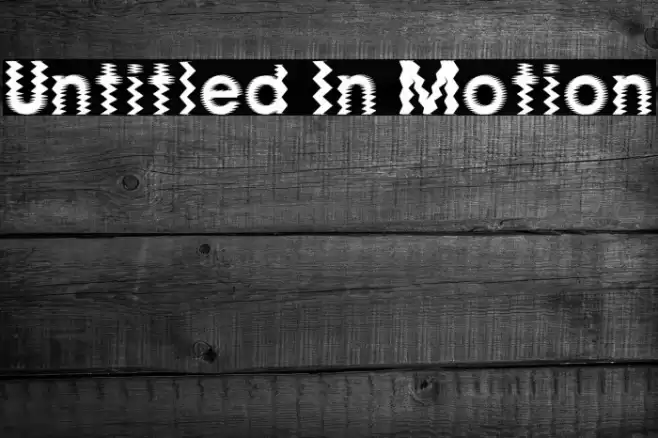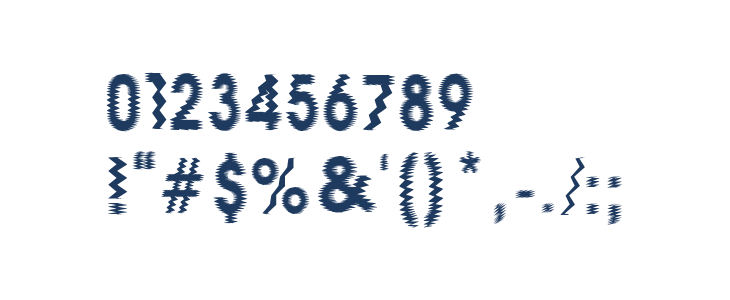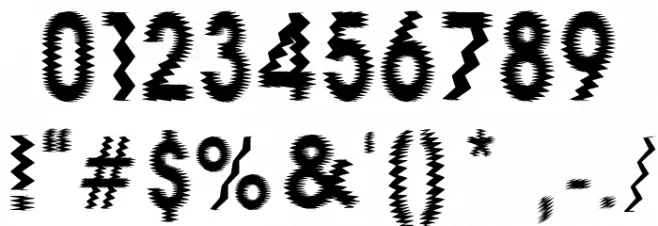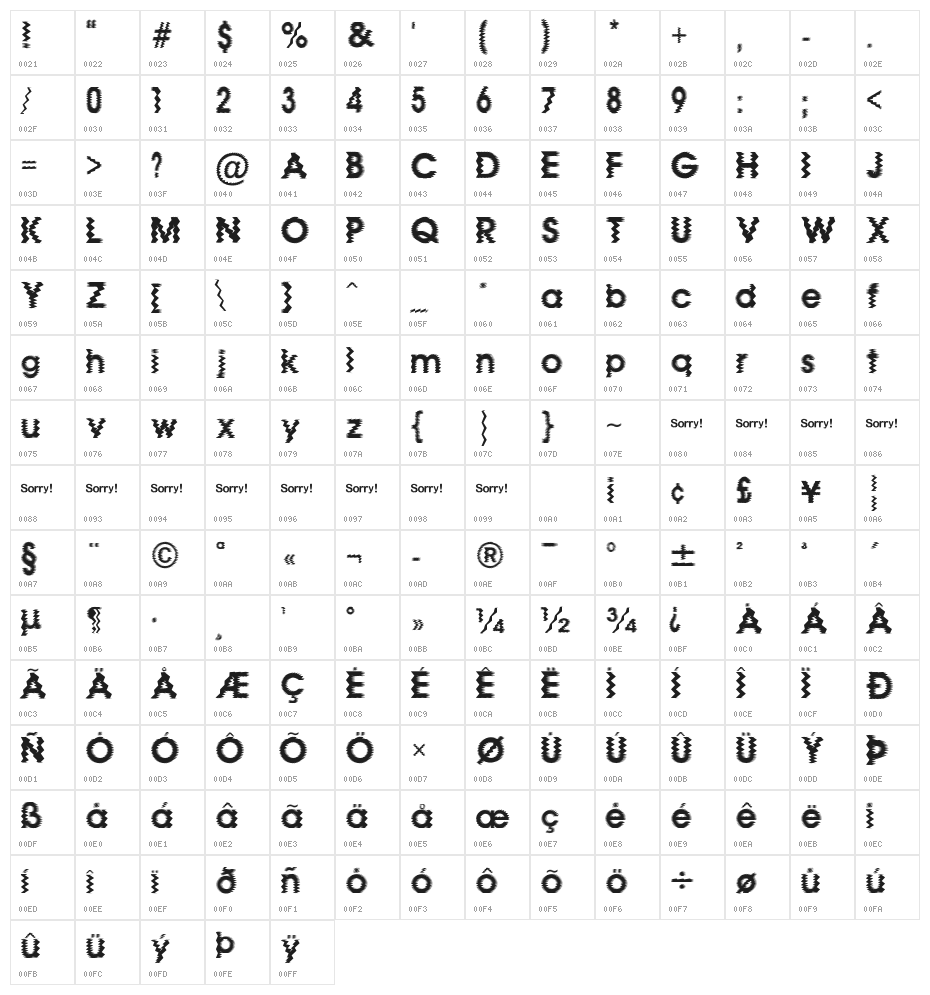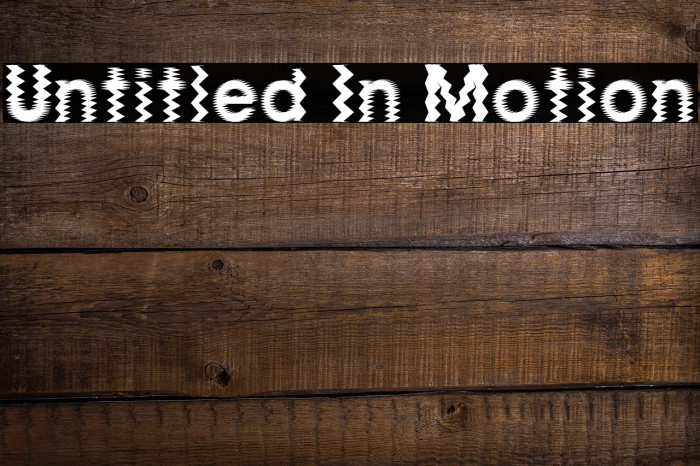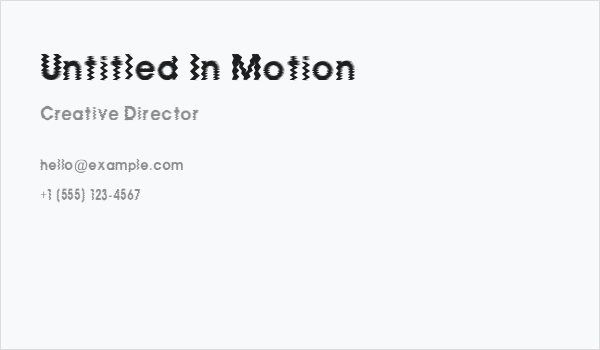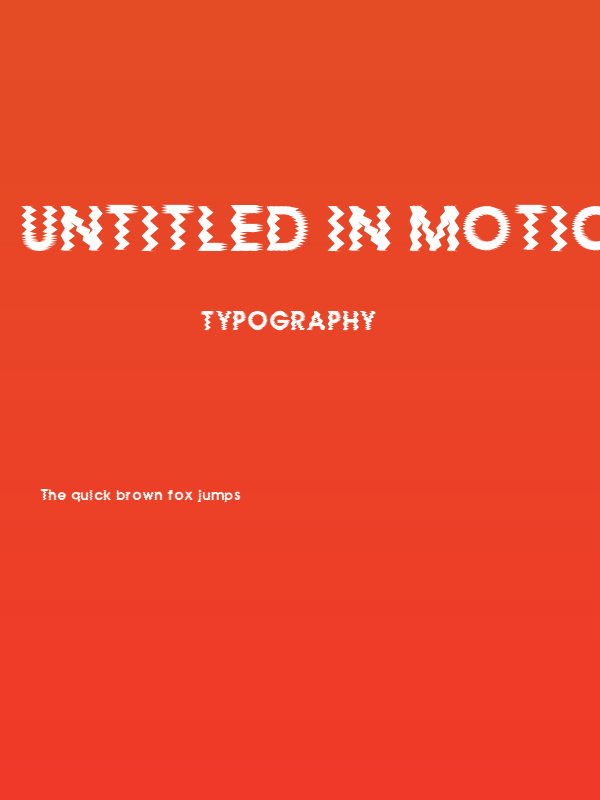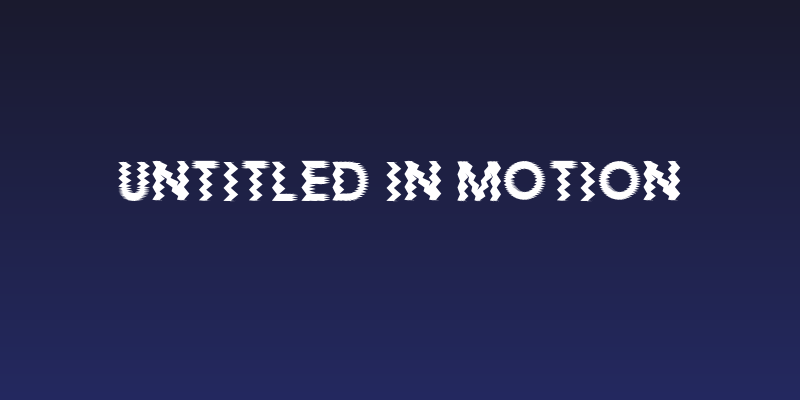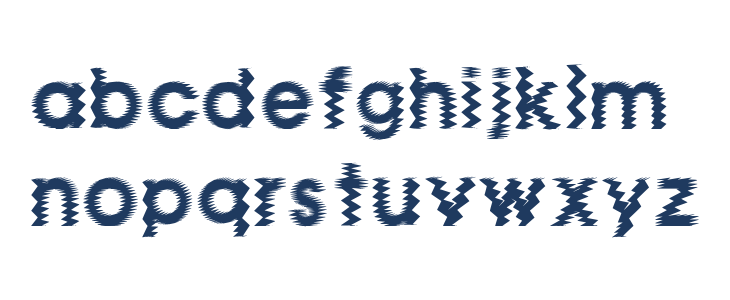
Untitled In Motion Font
Untitled In Motion Description
This dynamic and energetic font features a unique zigzag pattern that gives the impression of motion and vibration. Each character is designed with a jagged, serrated edge that creates a sense of speed and movement. The bold, thick strokes enhance its visual impact, making it ideal for attention-grabbing designs. The uppercase and lowercase letters maintain a consistent style, while the numerals and special characters are equally distinctive. This font's striking appearance is perfect for projects that require a modern and edgy aesthetic.
A bold, zigzag-patterned font that conveys motion and energy from Distorted Eroded fonts.